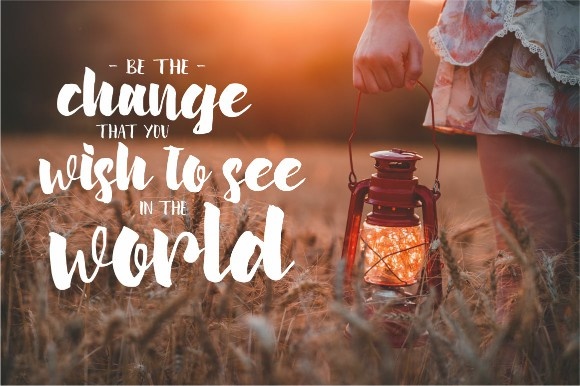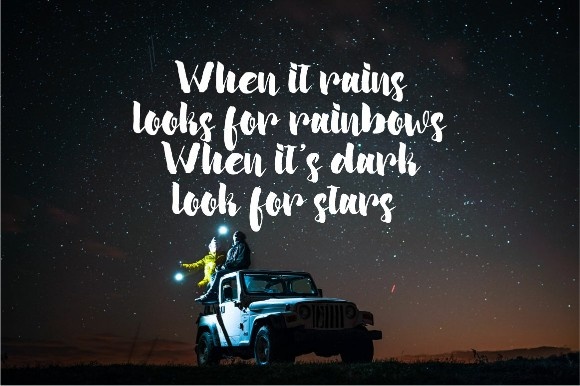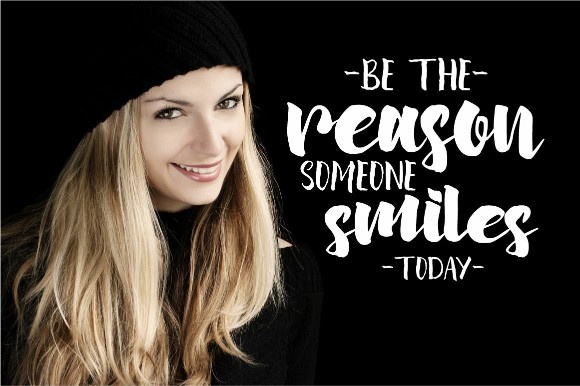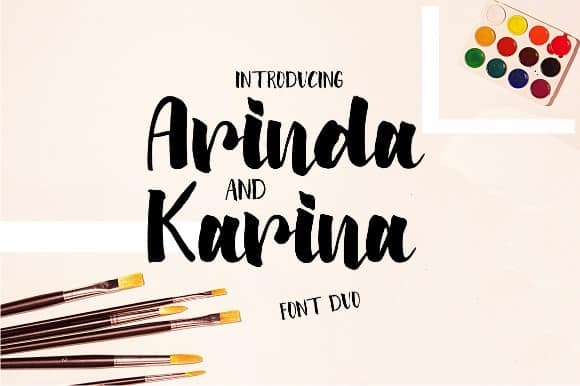
Arinda Brush Font
Continue to be a free font package a solid brush font. Introducing Arinda Font. It is designed and shared by FLAMDE STUDIO. Arinda is modern brush script with a handmade brush style, skecthing with love and tracing carefully to give best result, Karina is handmade All caps font, it’s perfect to pairing with arinda, It’s beautiful on invitations, greeting cards, branding materials, business cards, quotes, posters, and more!